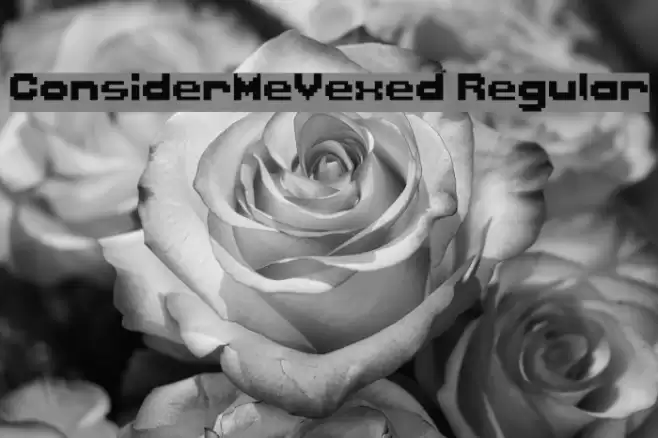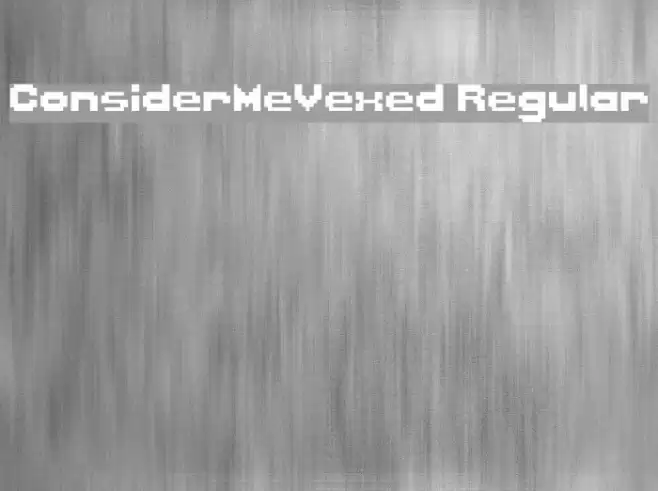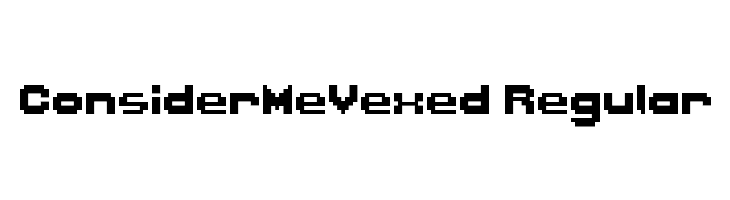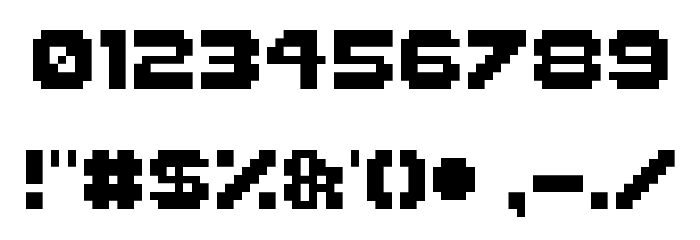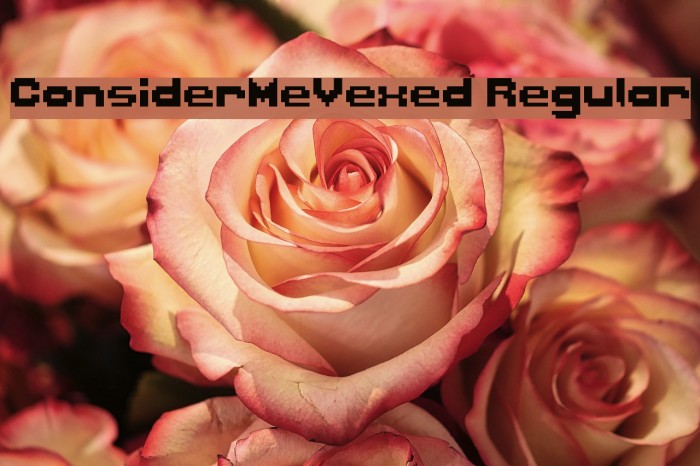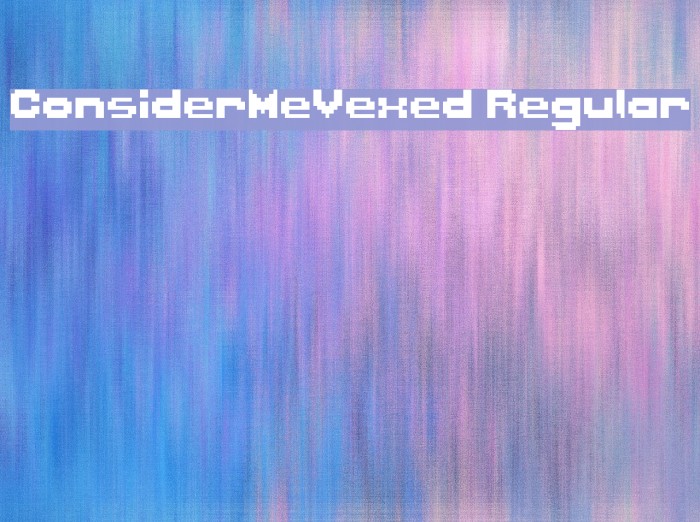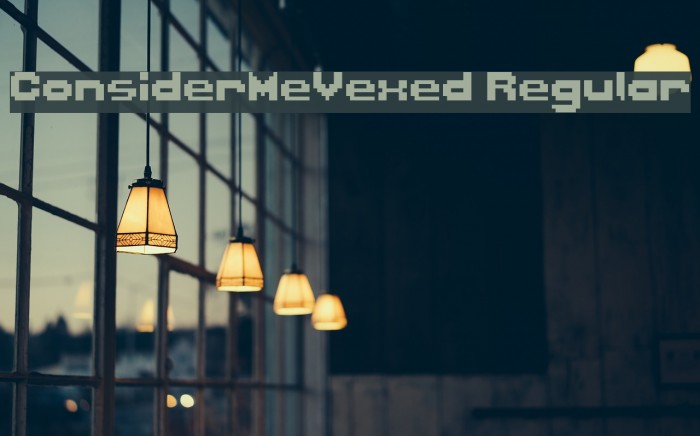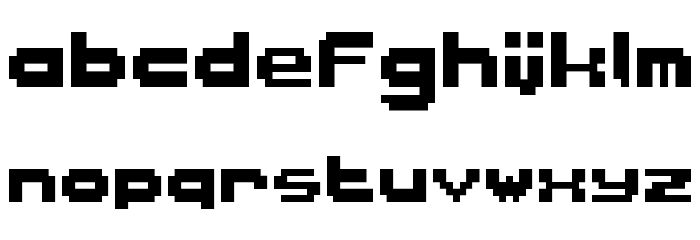
ConsiderMeVexed Regular Font
ConsiderMeVexed Regular Description
This font features a bold, pixelated design reminiscent of early digital displays and retro video games. Each character is constructed with a blocky, geometric style, emphasizing straight lines and right angles. The uppercase and lowercase letters maintain a consistent height, contributing to a uniform appearance. Numbers and special characters follow the same pixelated aesthetic, ensuring a cohesive look across all elements. The font's distinct style makes it ideal for projects that require a nostalgic or tech-inspired theme.
- Proposed Projects: Perfect for video game design, retro-themed posters, digital art, and tech-related branding.
- Overall Style: Retro, Digital